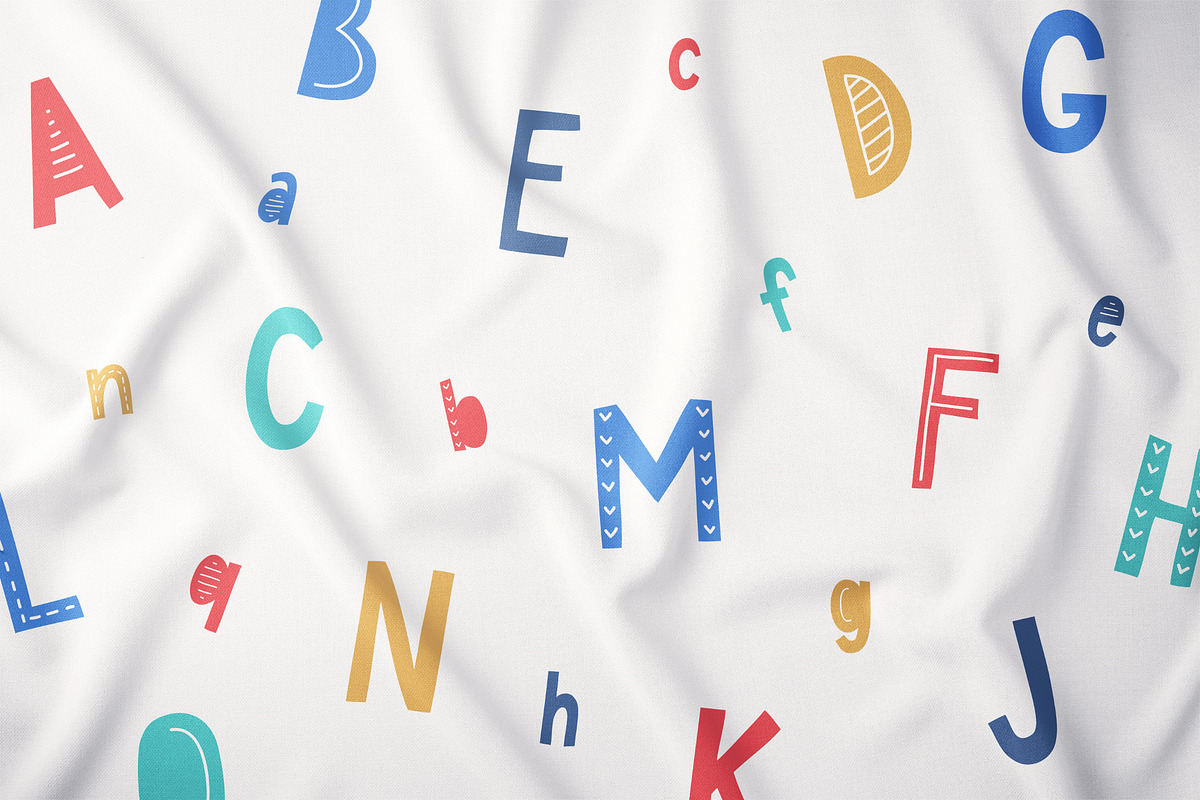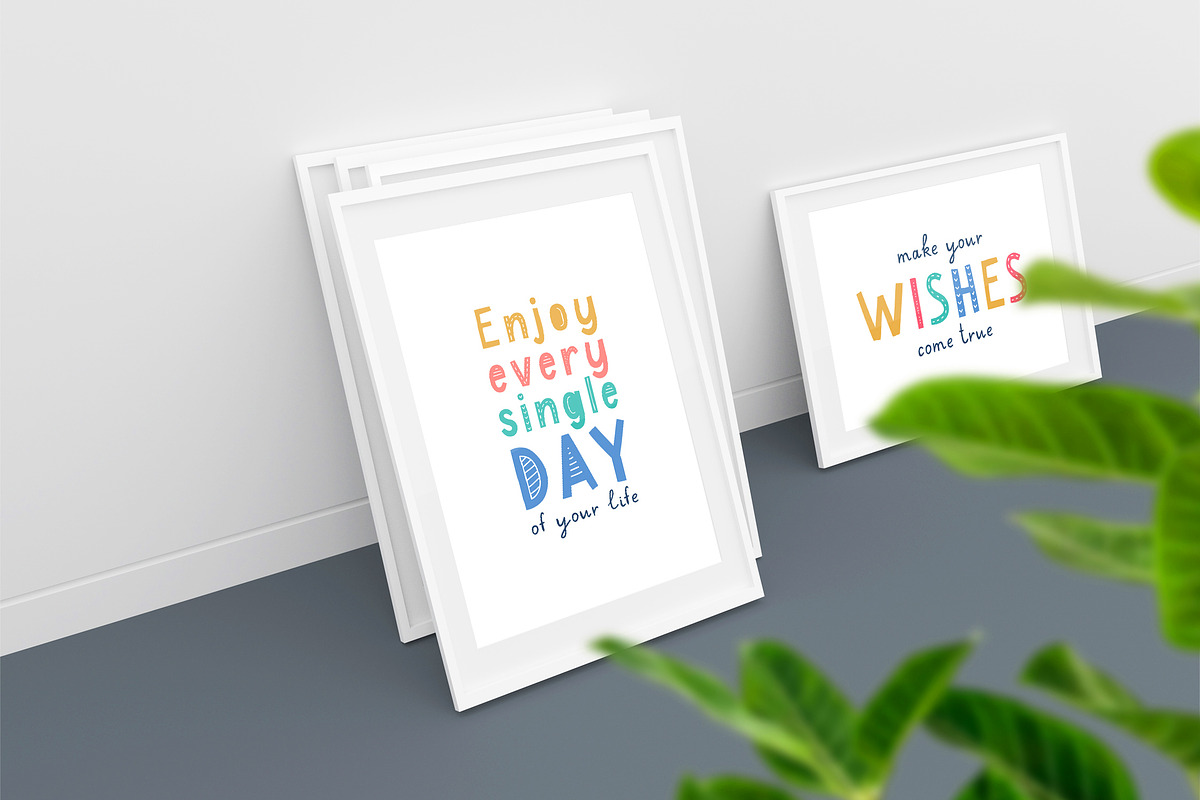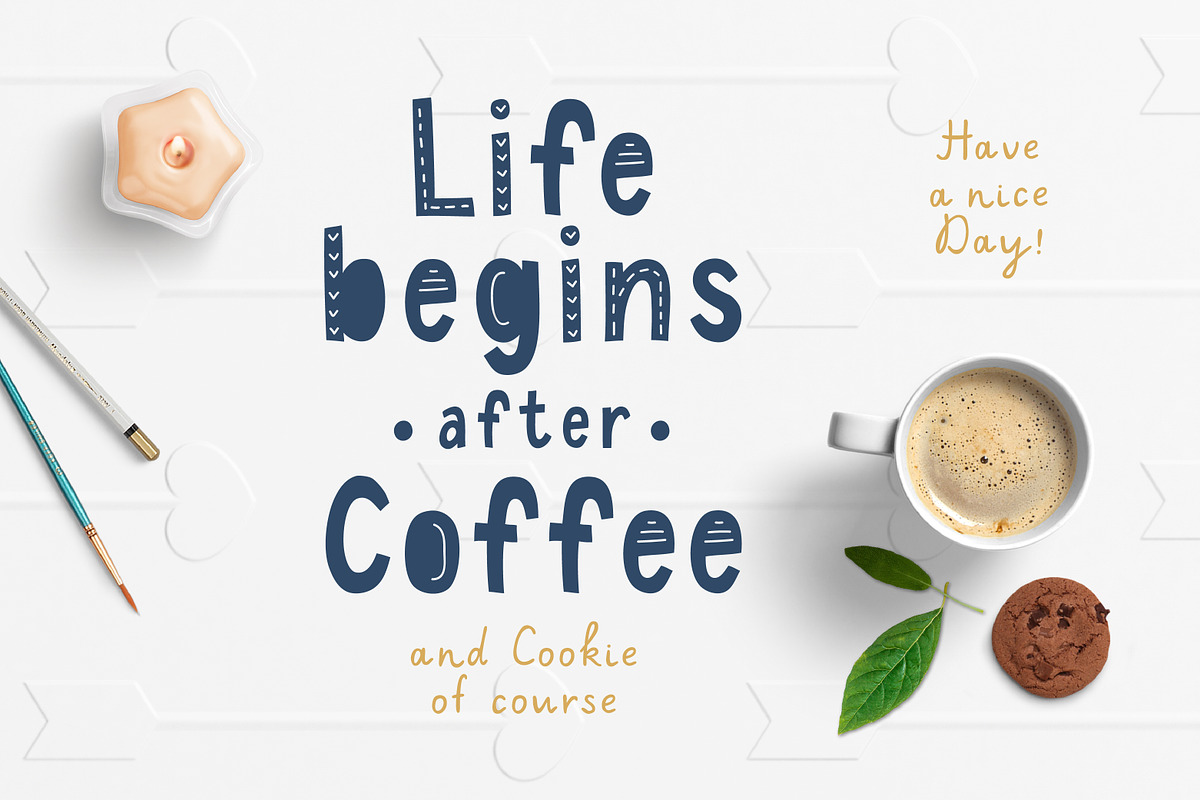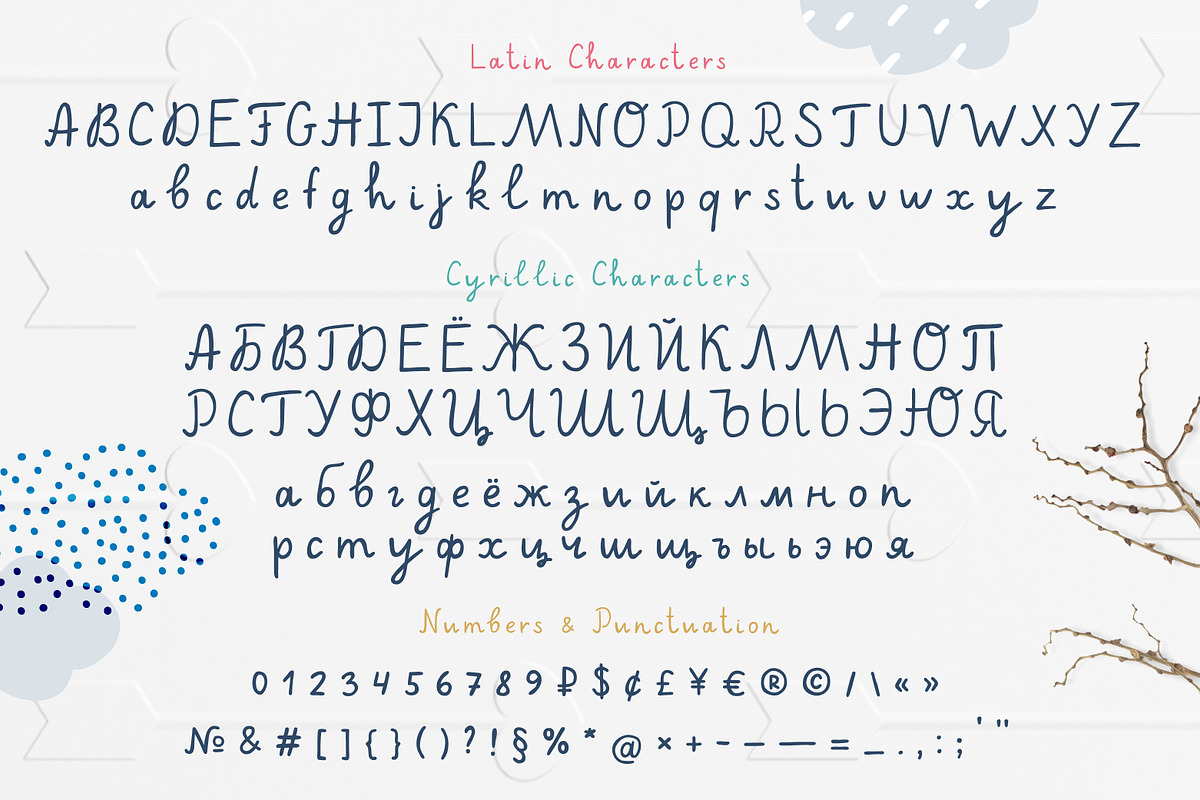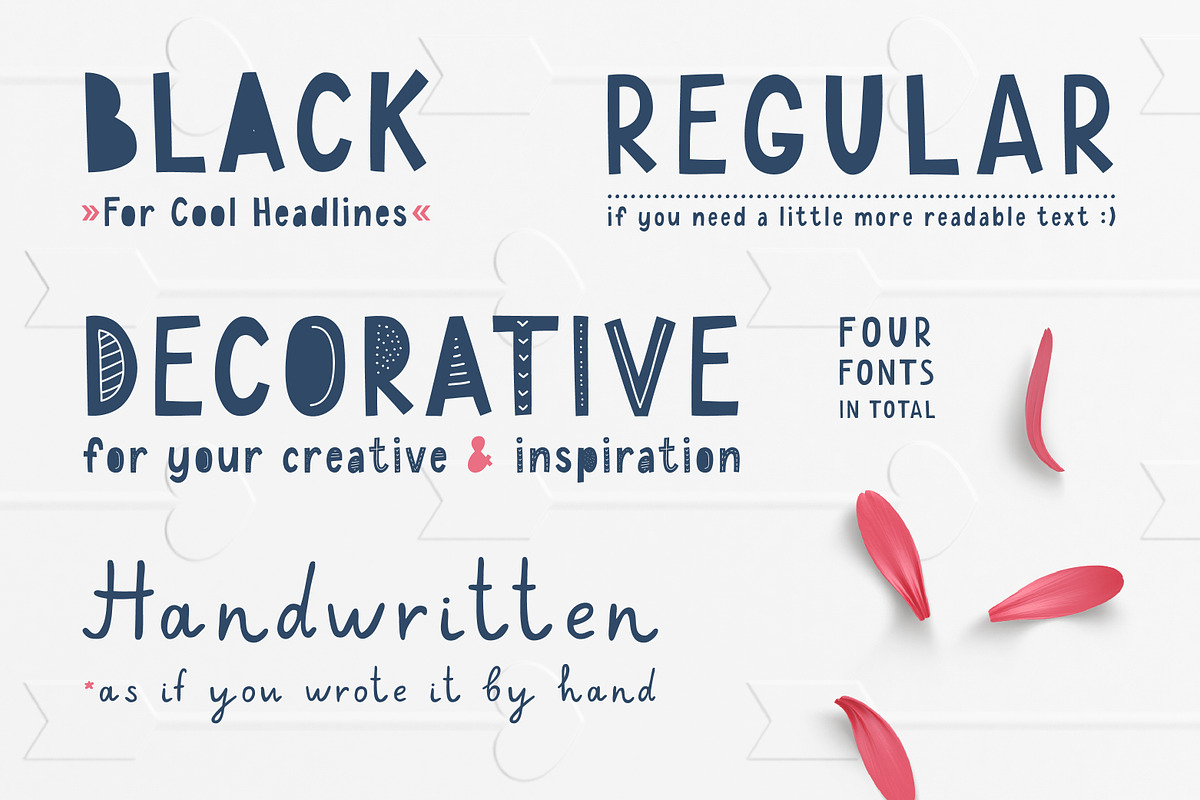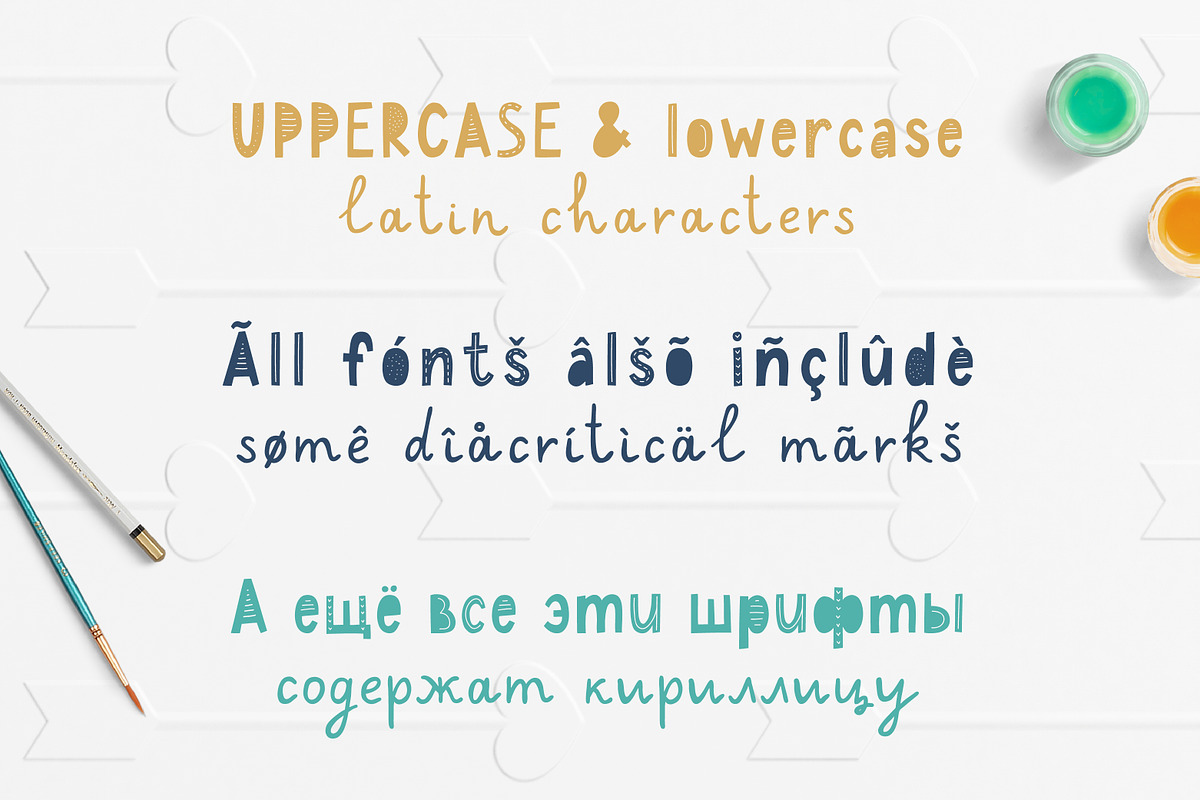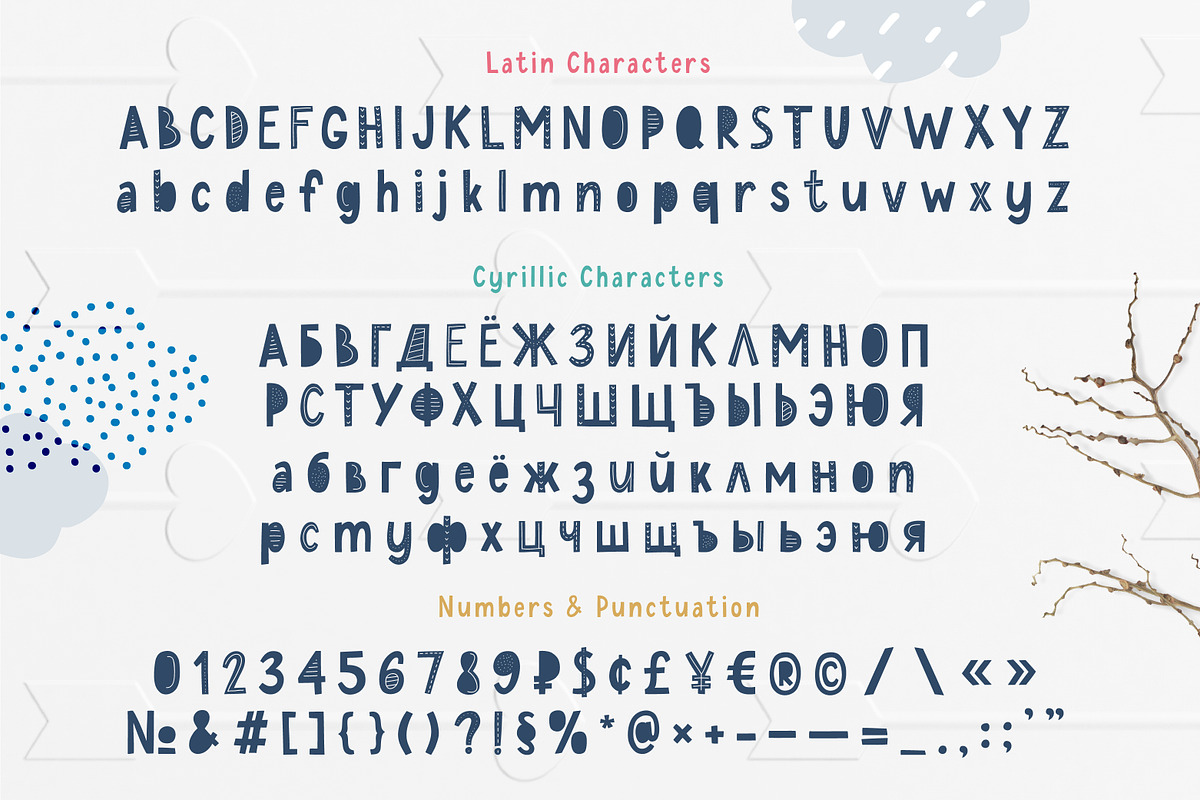
Maybug Latin & Cyrillic scandi fonts
Maybug is a funny Scandinavian font family which makes it great for any children's design. Each of these fonts include latin and cyrillic characters, diacritics, numbers and punctuation - 254 glyphs in total.
- Each of these fonts include latin and cyrillic characters, diacritics, numbers and punctuation - 254 glyphs in total.
- MaybugMS Regular
- MaybugMS Black
- MaybugMS Decorative
- MaybugMS Handwritten